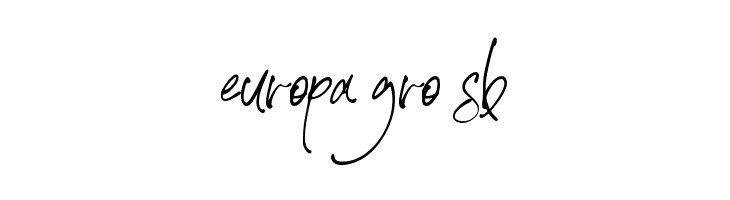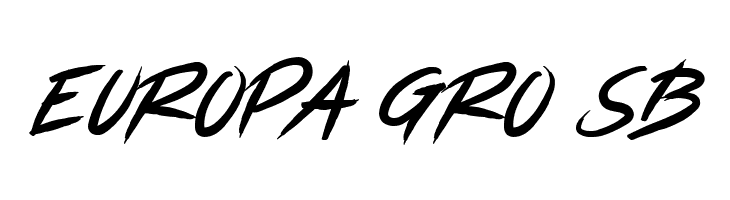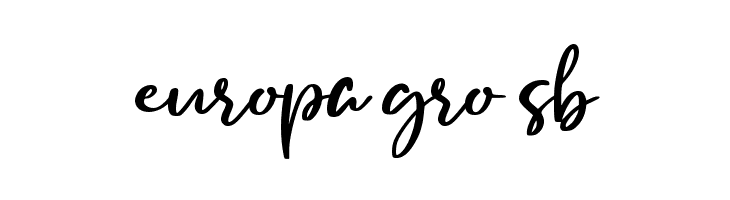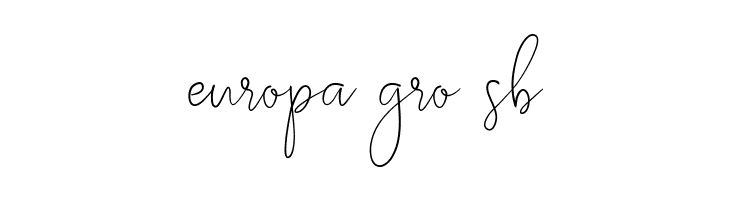
A lively and expressive script font with a handwritten feel.
A lively and expressive handwritten font with fluid, dynamic strokes.
A bold, energetic script font with dynamic, sweeping strokes.
A sophisticated, elegant handwritten script with flowing, interconnected letters.
A whimsical handwritten font with fluid, flowing letterforms and a playful bounce.
A delicate, elegant script font with a handwritten style.
An elegant script font with intricate flourishes and a classic, timeless style.
An elegant script font with intricate loops and swirls, perfect for formal uses.
An elegant and sophisticated script font with intricate flourishes.
An elegant script font with intricate, flowing lines and ornate detailing.